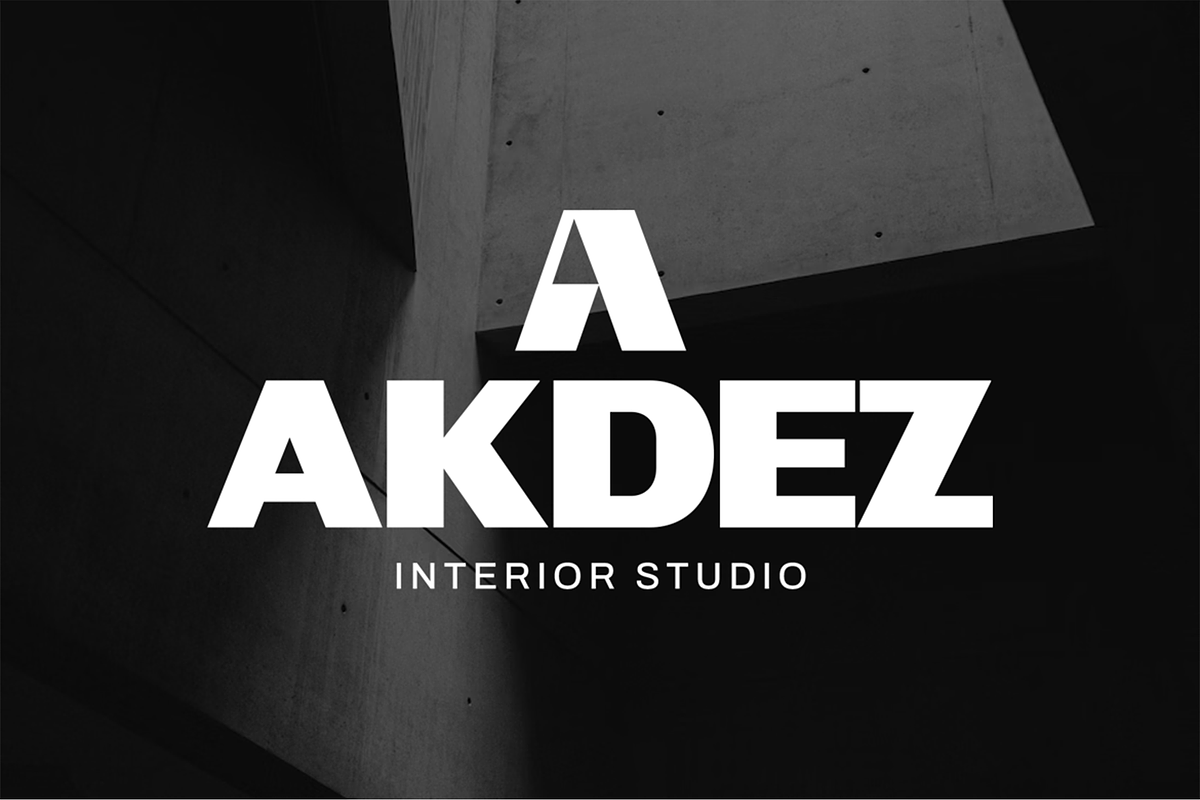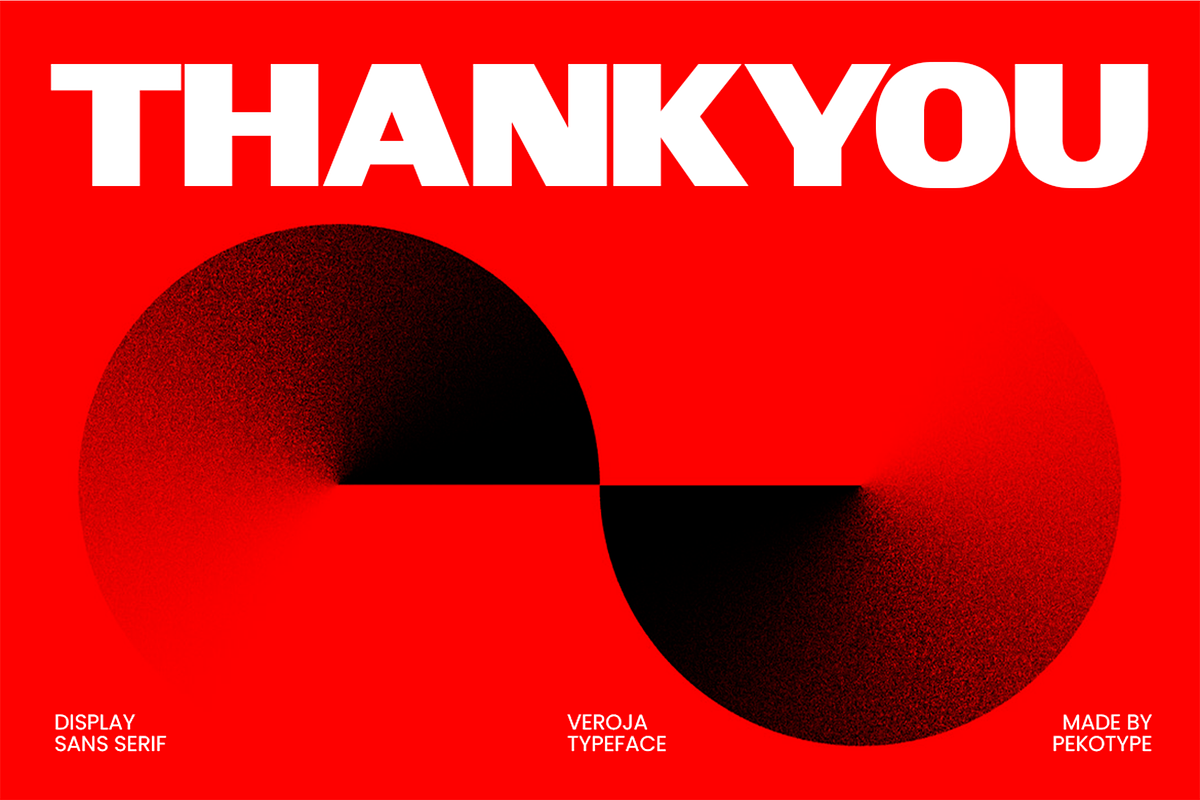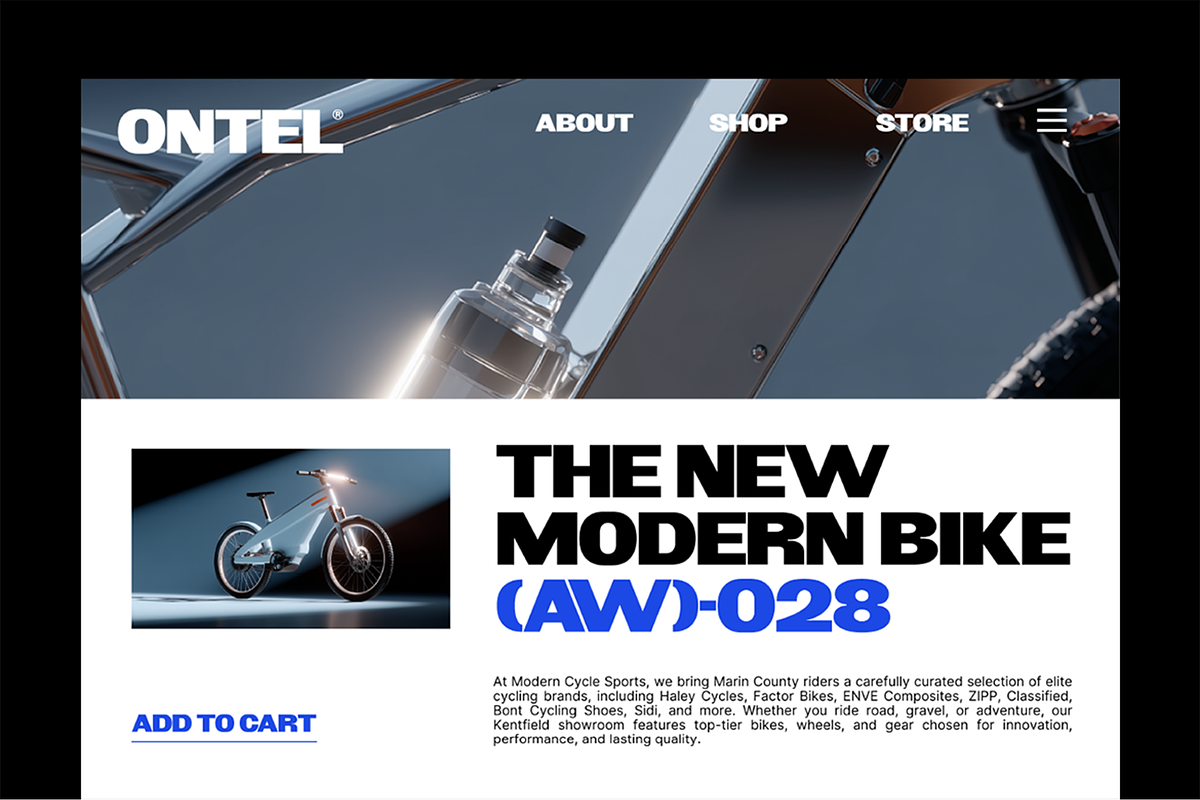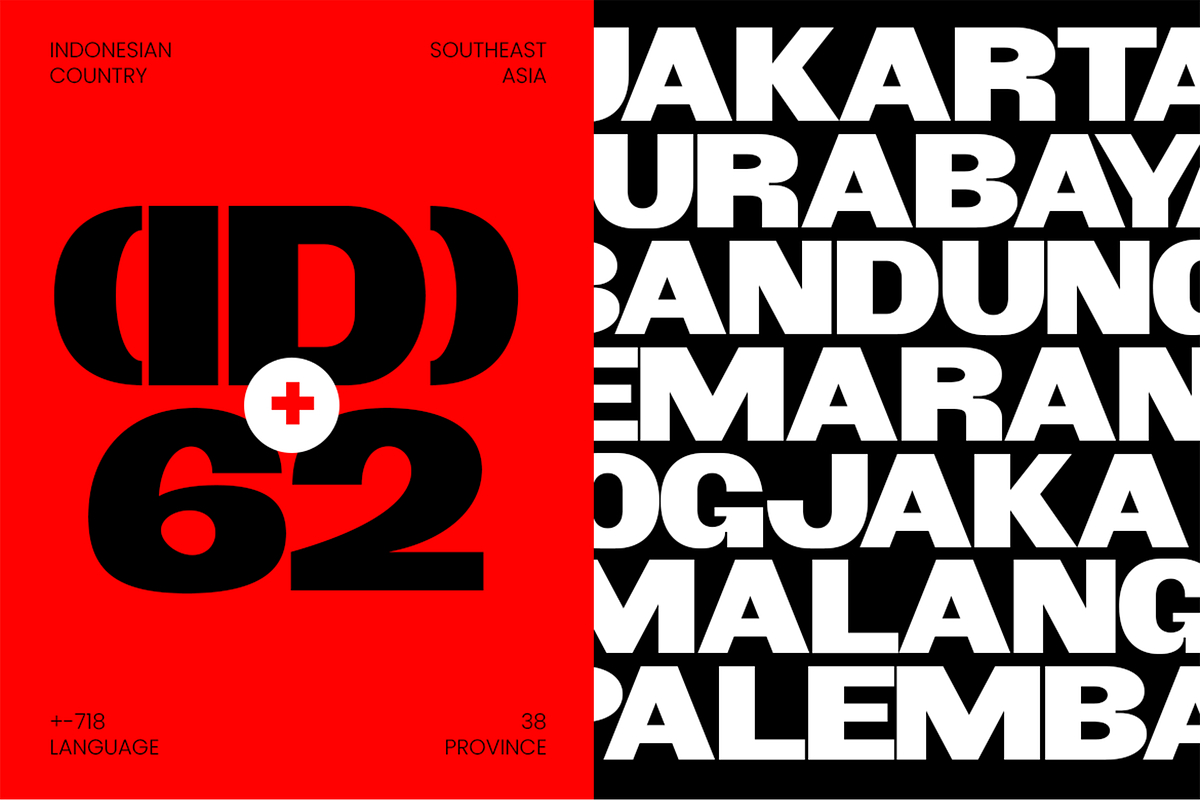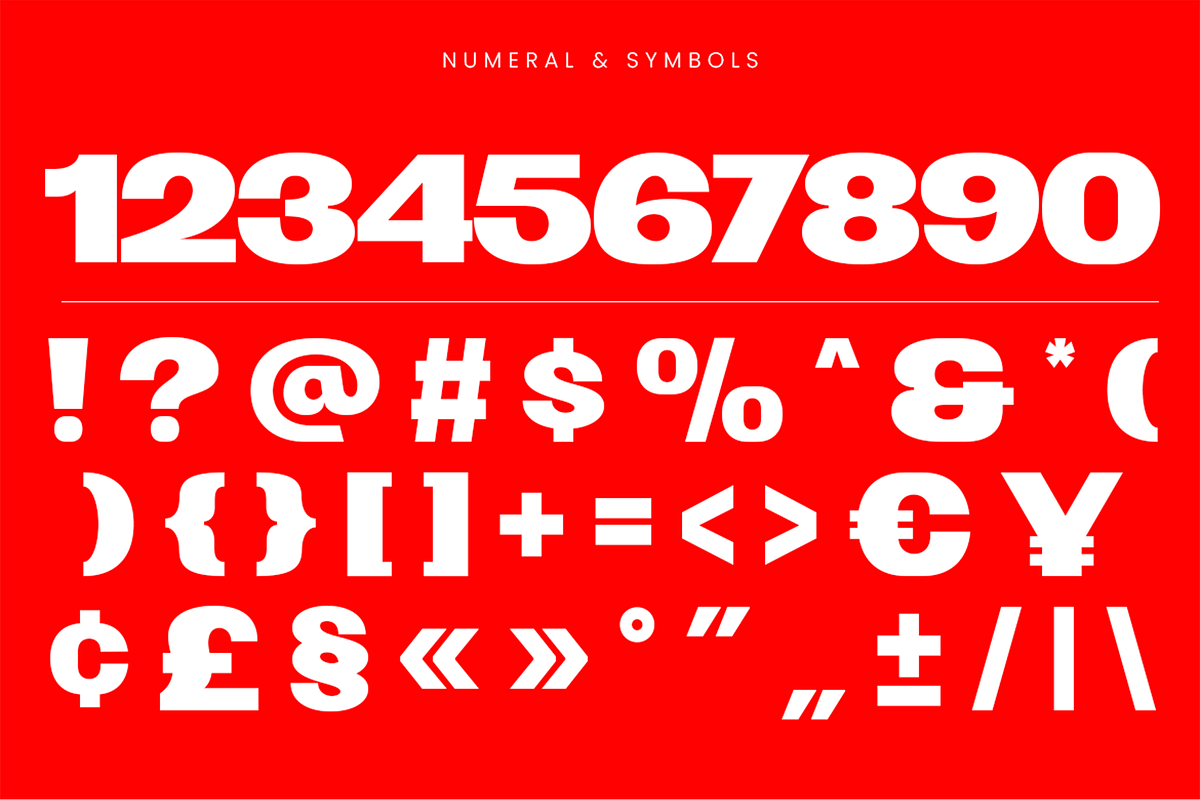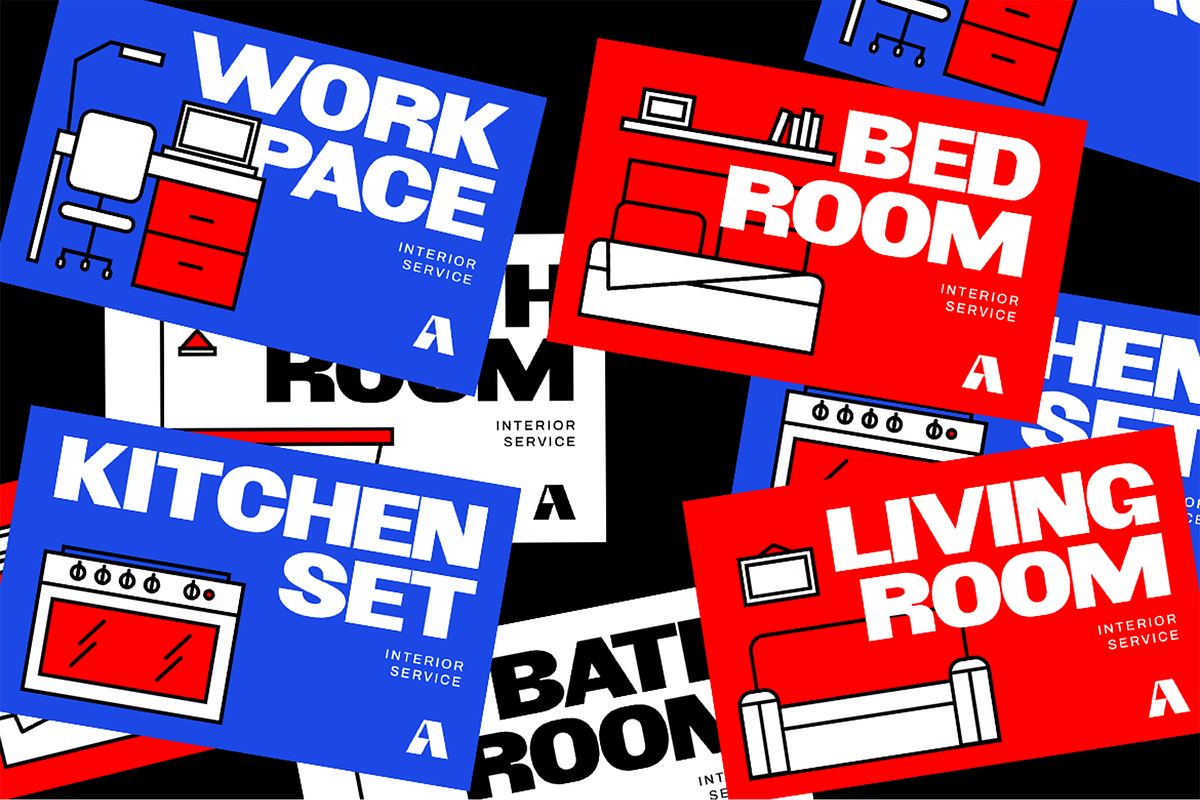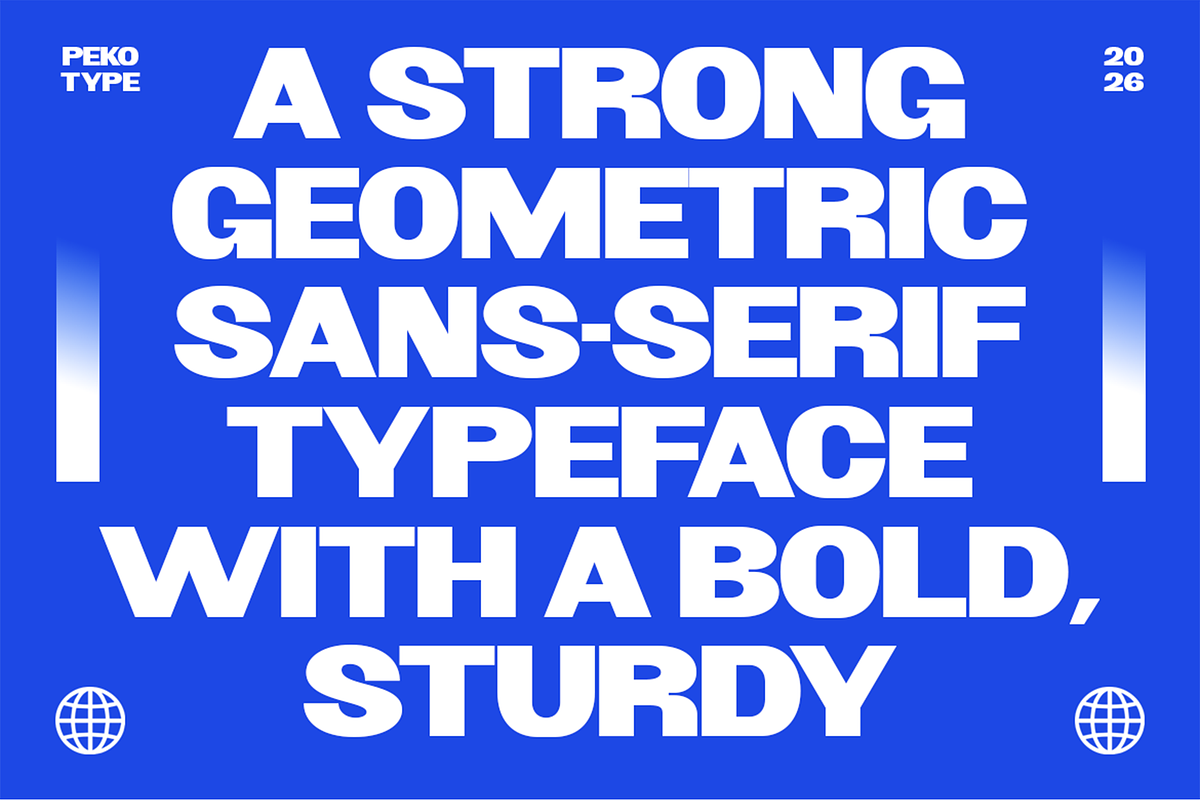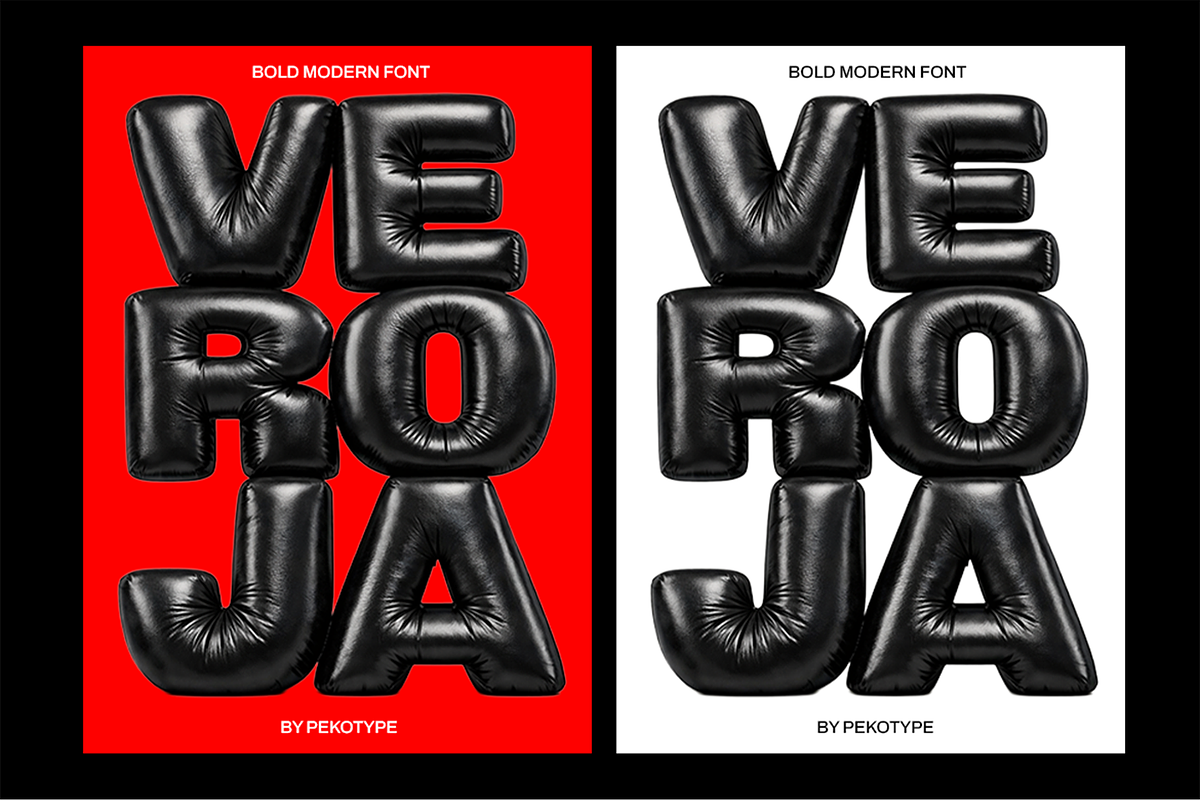
Veroja - Bold Expanded Display Font
Veroja - Bold Expanded Display Font. VEROJA is a strong geometric sans-serif display font with a bold and sturdy character. The letterforms are clean, sharp, and solid, giving your text a powerful and confident look. Built with a modern structure and compact shapes, VEROJA feels dynamic, urban, and ready for high-impact design. It’s an all-caps style font that instantly stands out while staying clear and easy to read.
VEROJA is perfect for branding, logos, packaging, posters, album covers, streetwear graphics, signage, editorial headlines, web banners, and promotional campaigns. It works especially well for tech brands, urban fashion, music projects, startup visuals, and bold advertising layouts. If you need a modern sans-serif display font that feels strong, professional, and eye-catching, VEROJA helps your design look solid and full of presence.
- All Caps
- Number, Symbol, & Punctuation